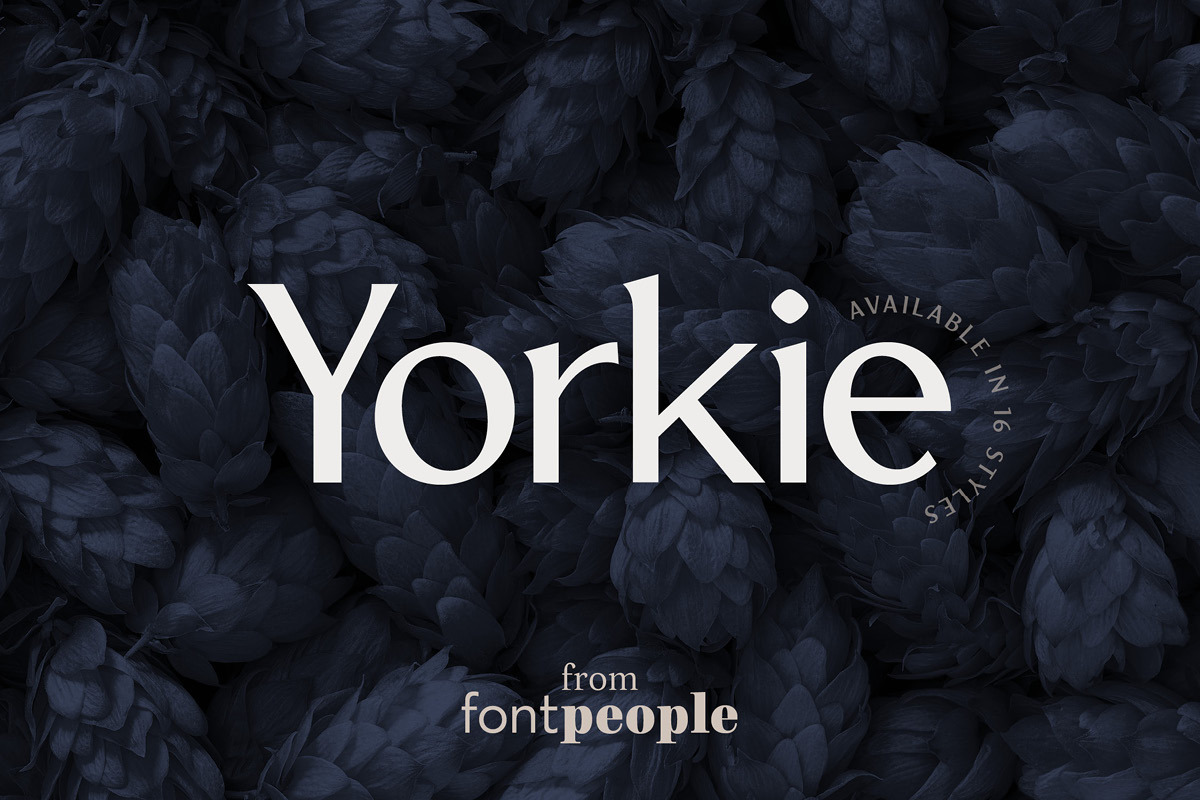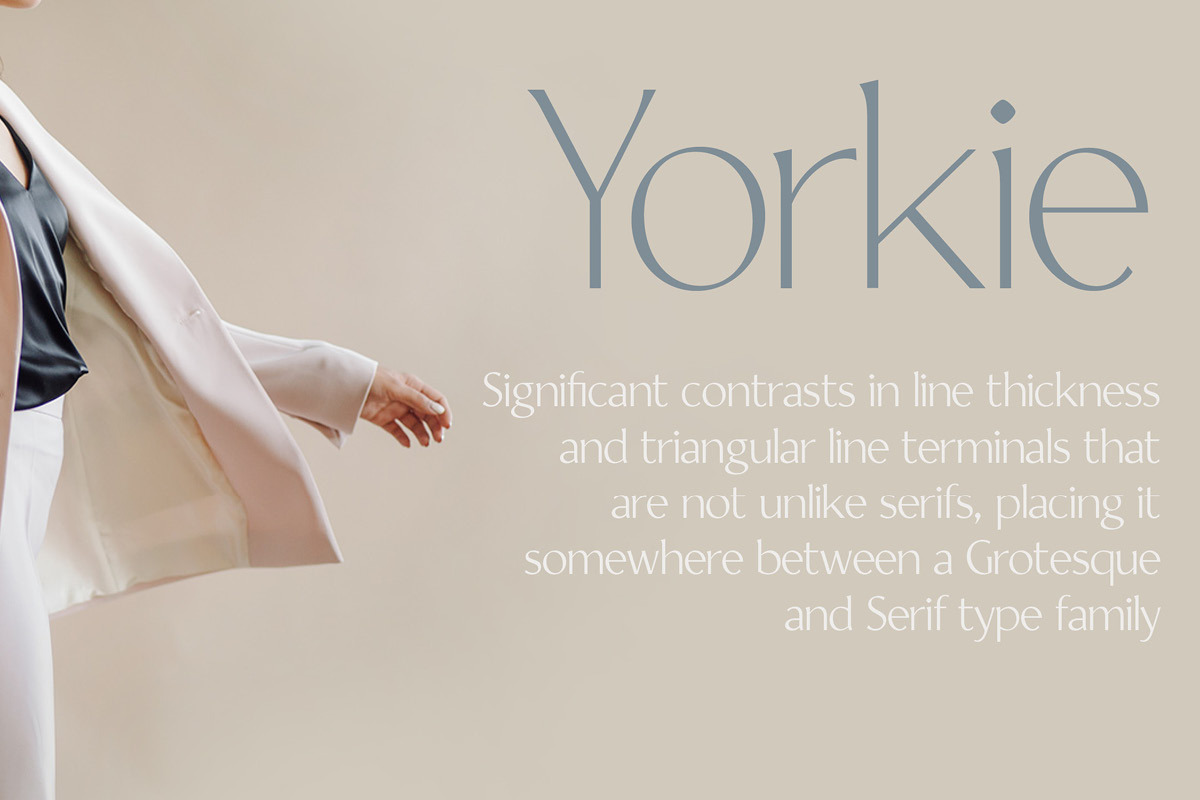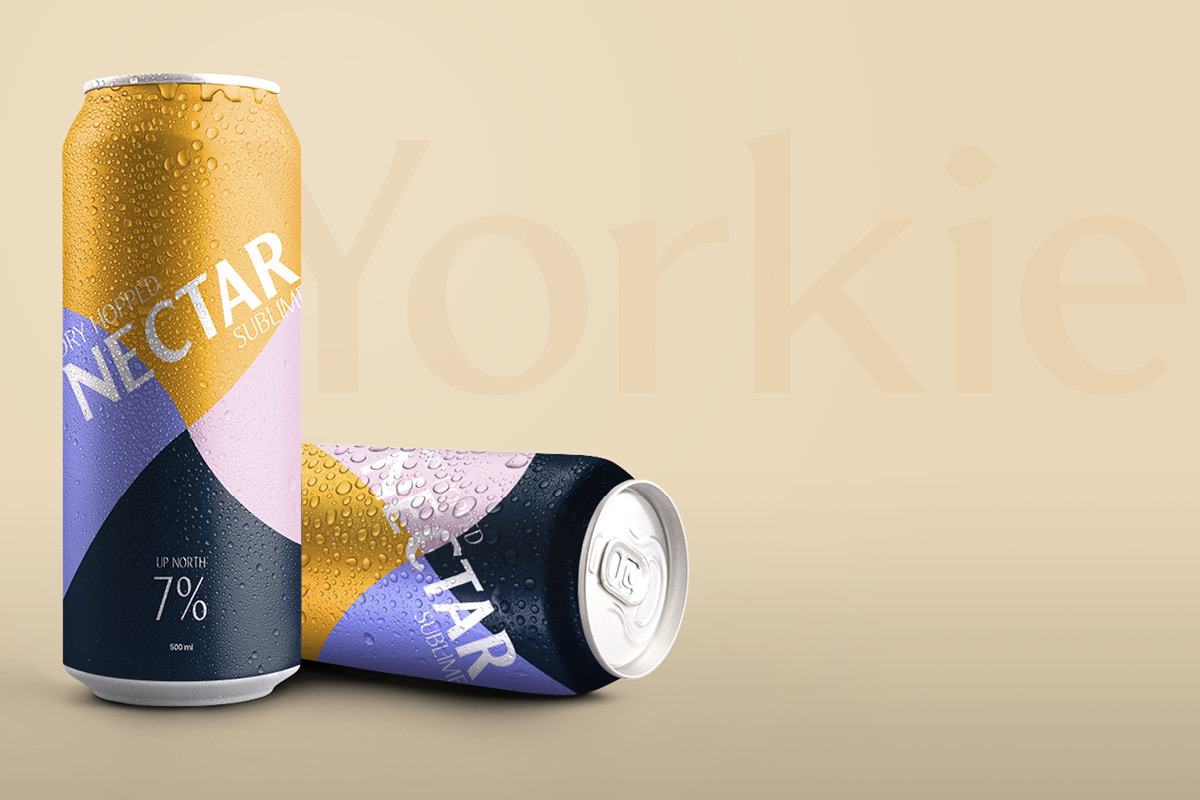
Yorkie font family by Fontpeople
Yorkie has significant contrasts in line thickness and triangular line terminals that are not unlike serifs, placing it somewhere between a Grotesque and Serif type family. The contrast between the features of a humanist Grotesque and an Antiqua gives the characters of Yorkie their distinctive charm and is the distinguishing attribute of this contemporary type family.
Thanks to a generous x-height and its open counters, Yorkie is also highly legible in small point sizes.